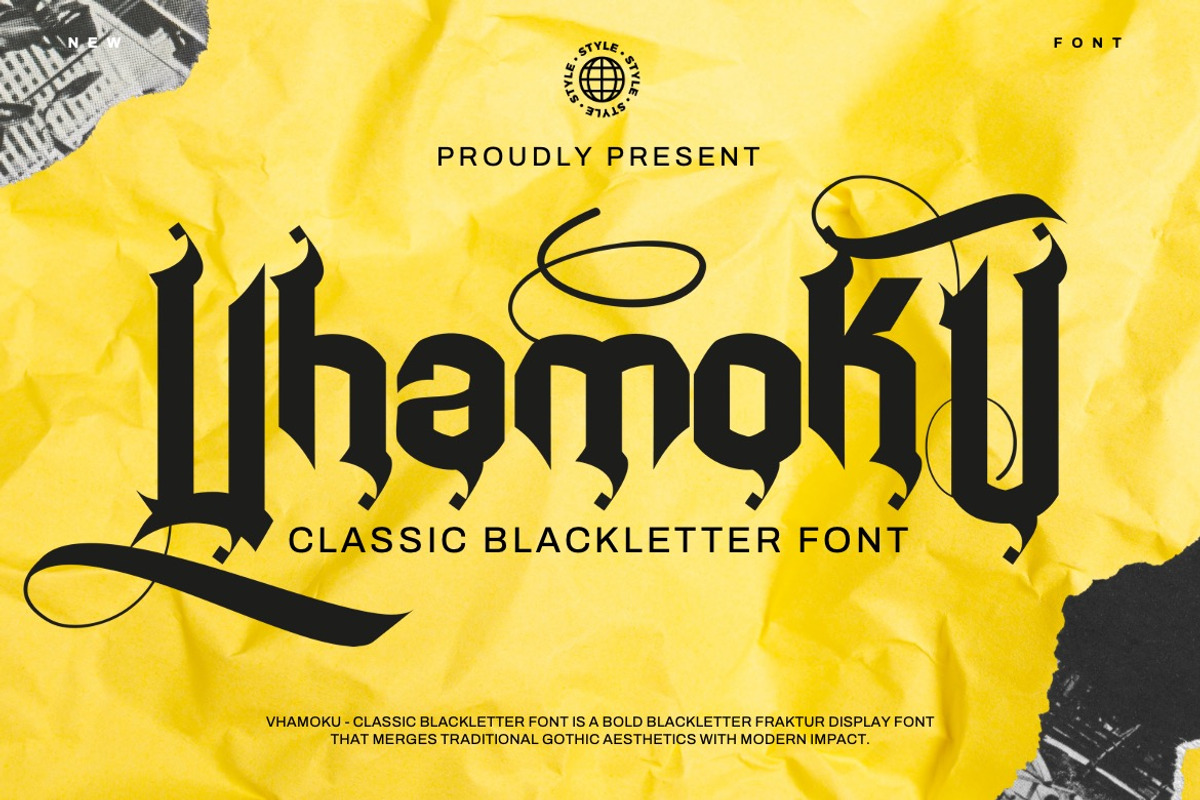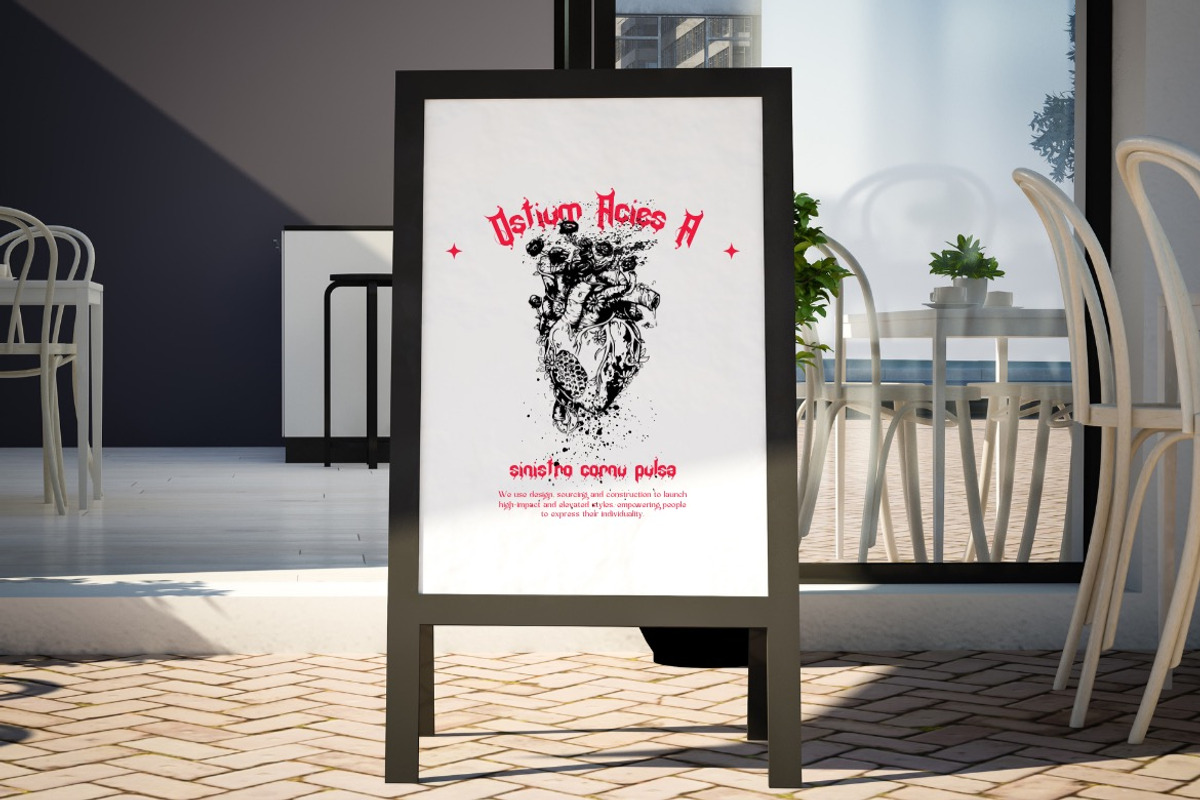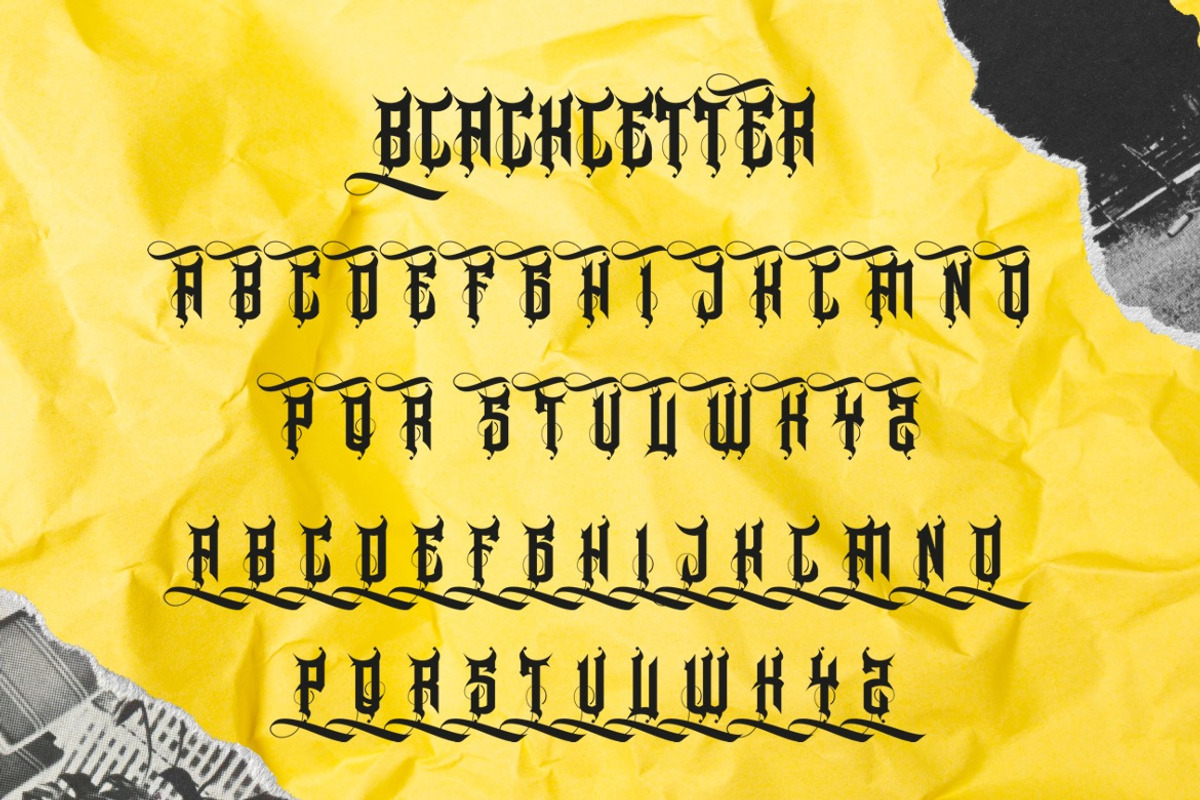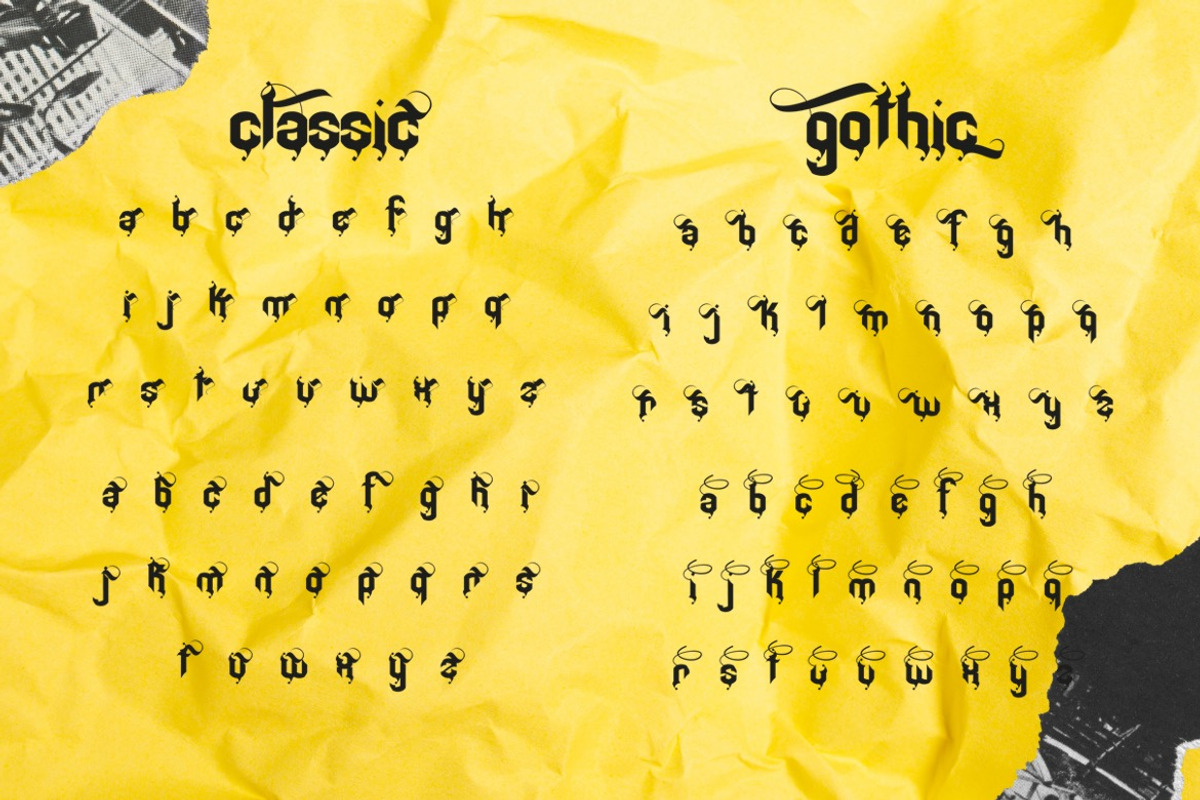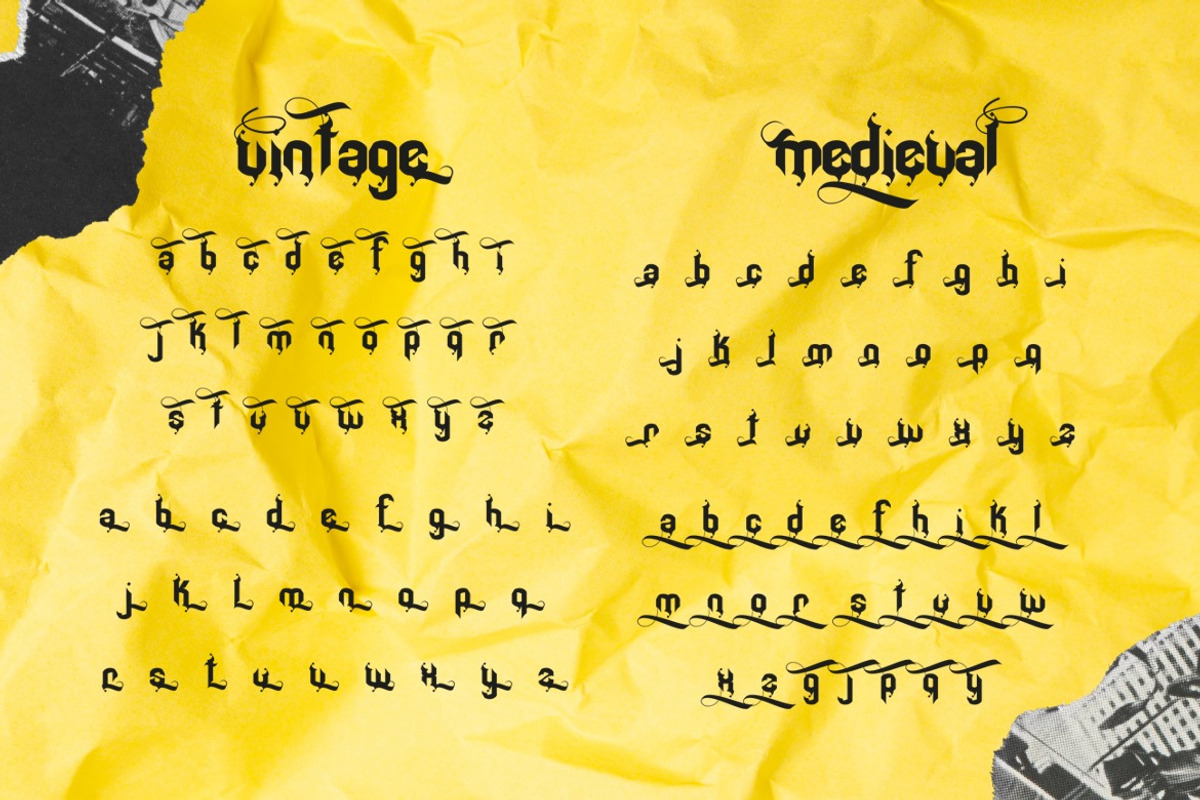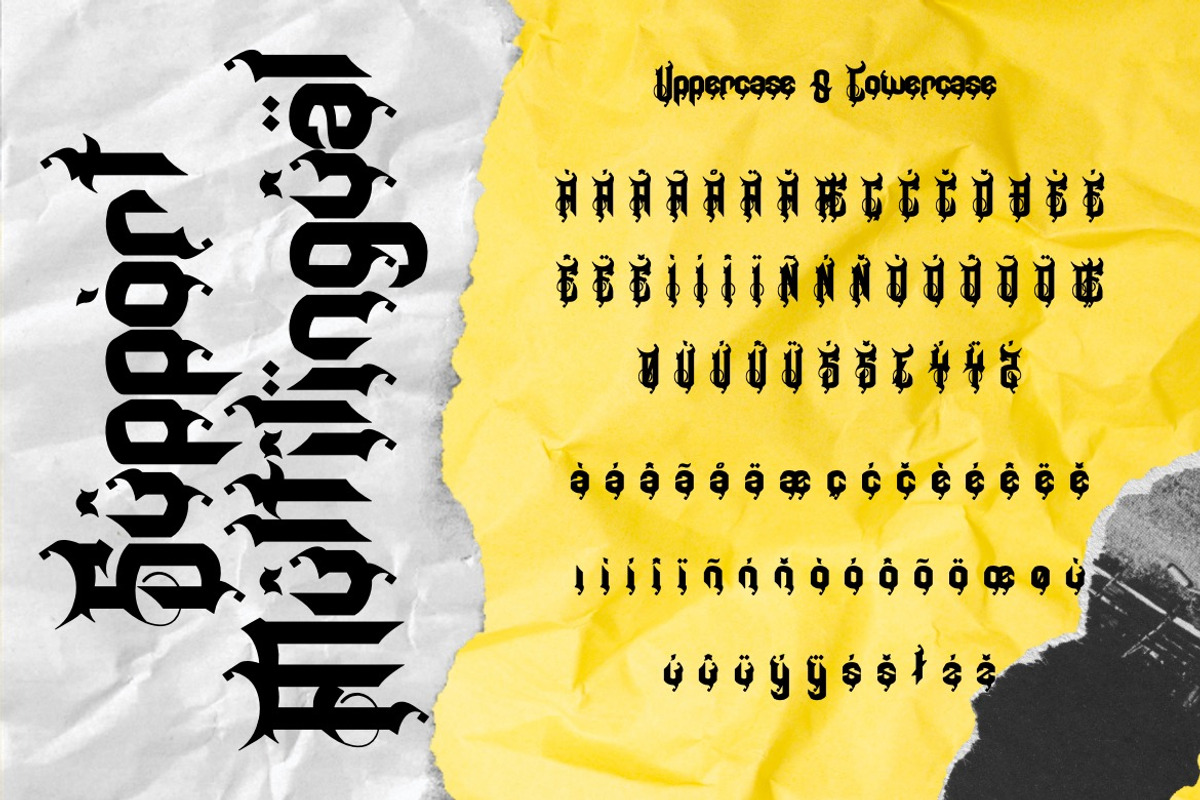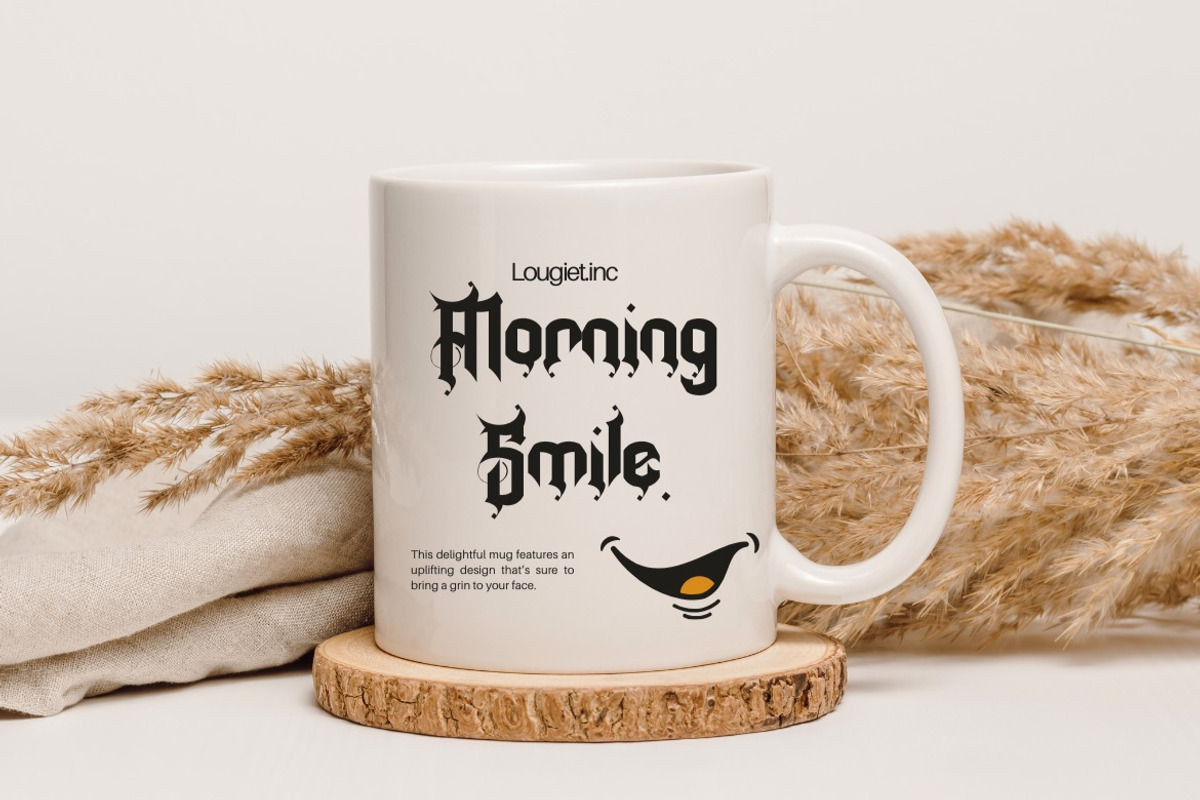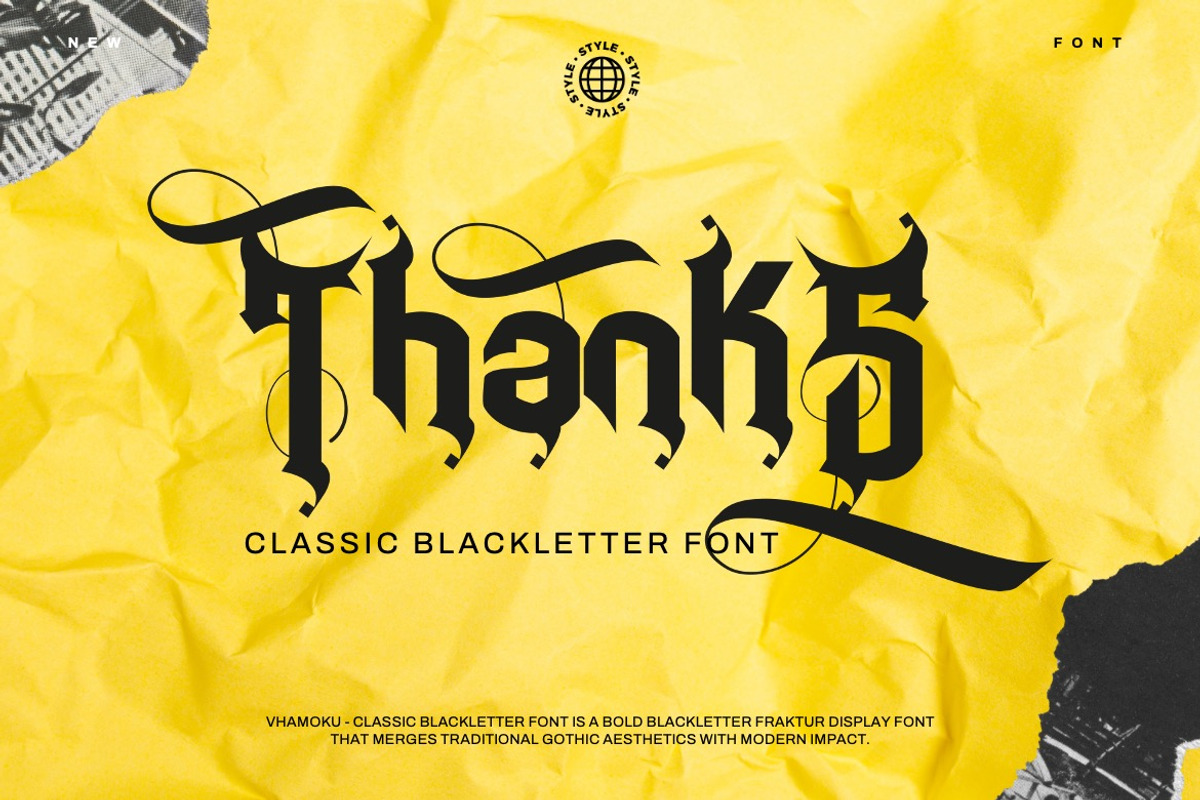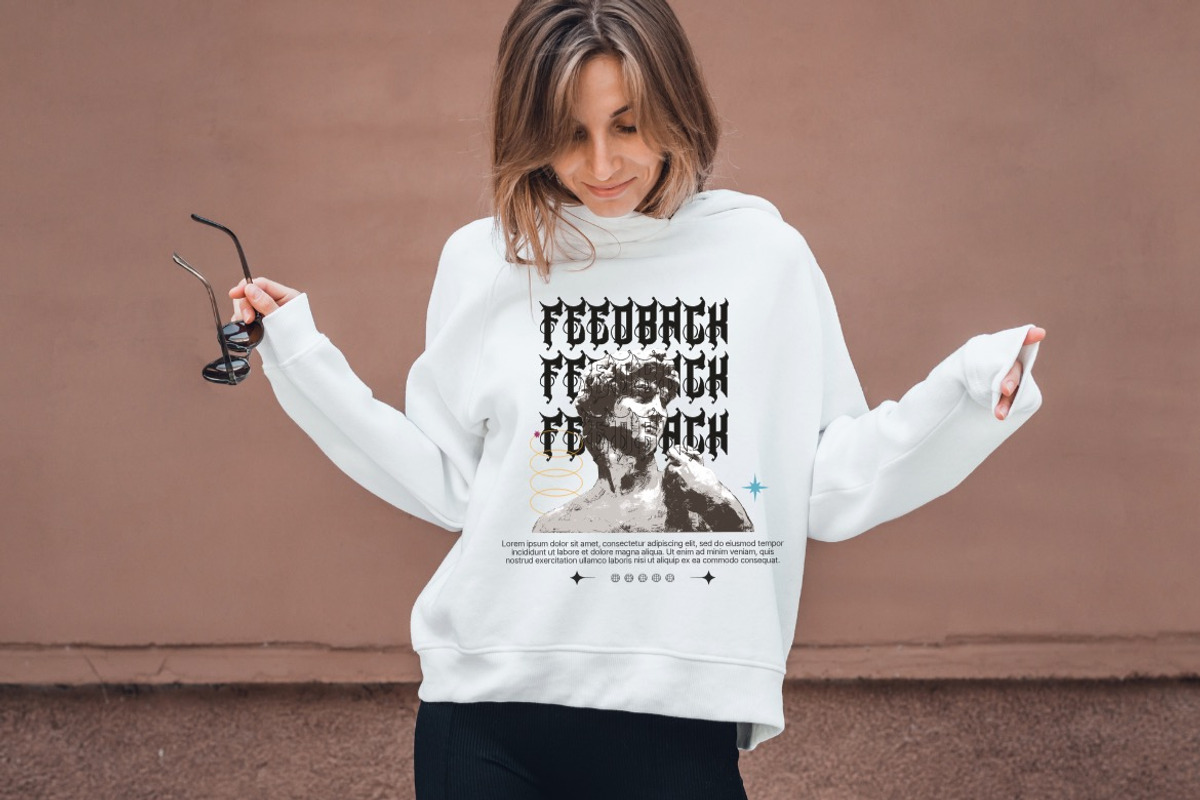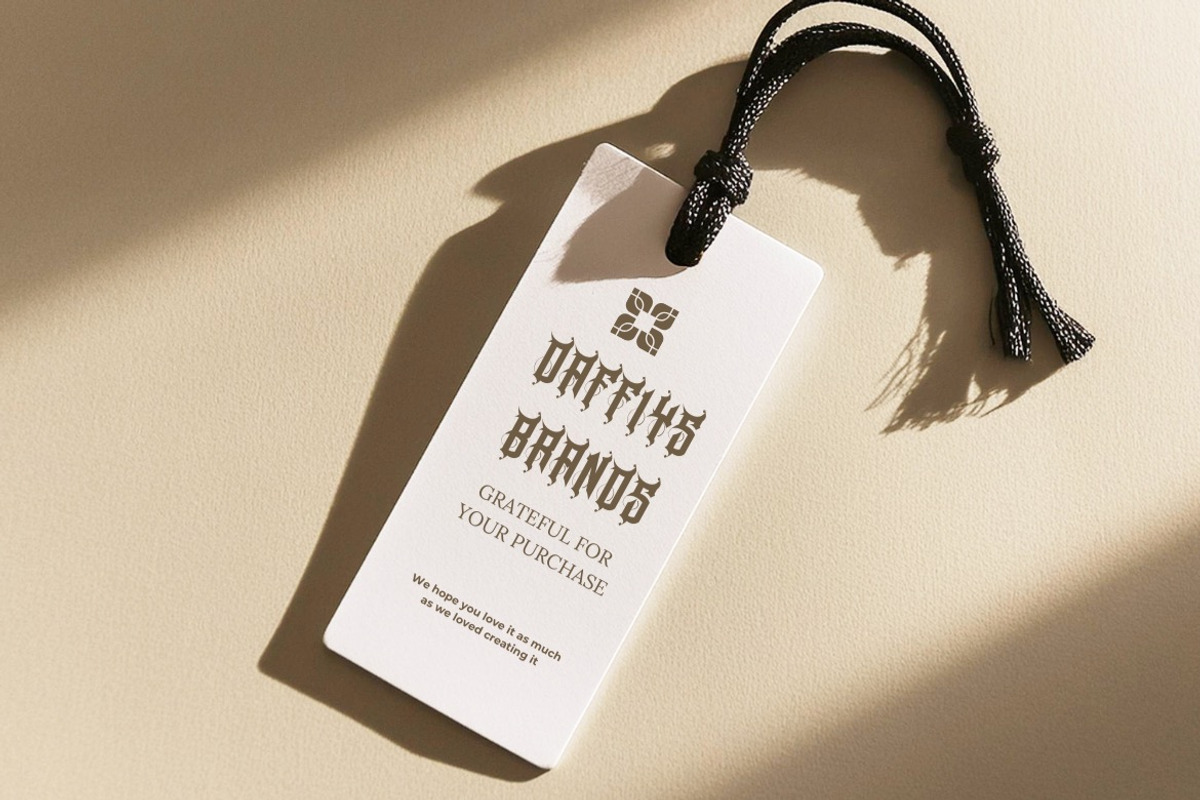
Vhamoku - Classic Blackletter Font
Introducing ** Vhamoku - Classic Blackletter Font **
Vhamoku - Classic Blackletter Font is a bold blackletter fraktur display font that merges traditional Gothic aesthetics with modern impact. Its intricate letterforms feature sharp angles, dramatic strokes, and striking contrasts, embodying strength, authority, and historical charm. The bold weight enhances its commanding presence, making it ideal for designs that demand attention and sophistication.